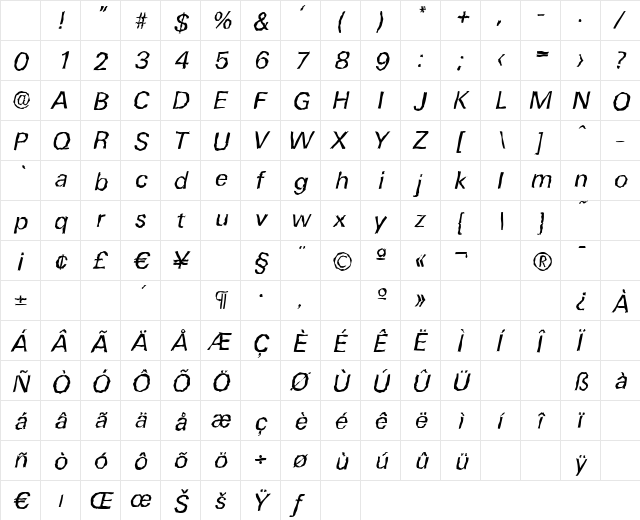
Complete UltimateRandom Italic glyph index. Displaying only characters natively supported by UltimateRandom Italic font.
UltimateRandom is a composed and adaptable typeface that performs quietly and consistently across a wide range of design contexts. The slanted form adds forward momentum and visual energy.